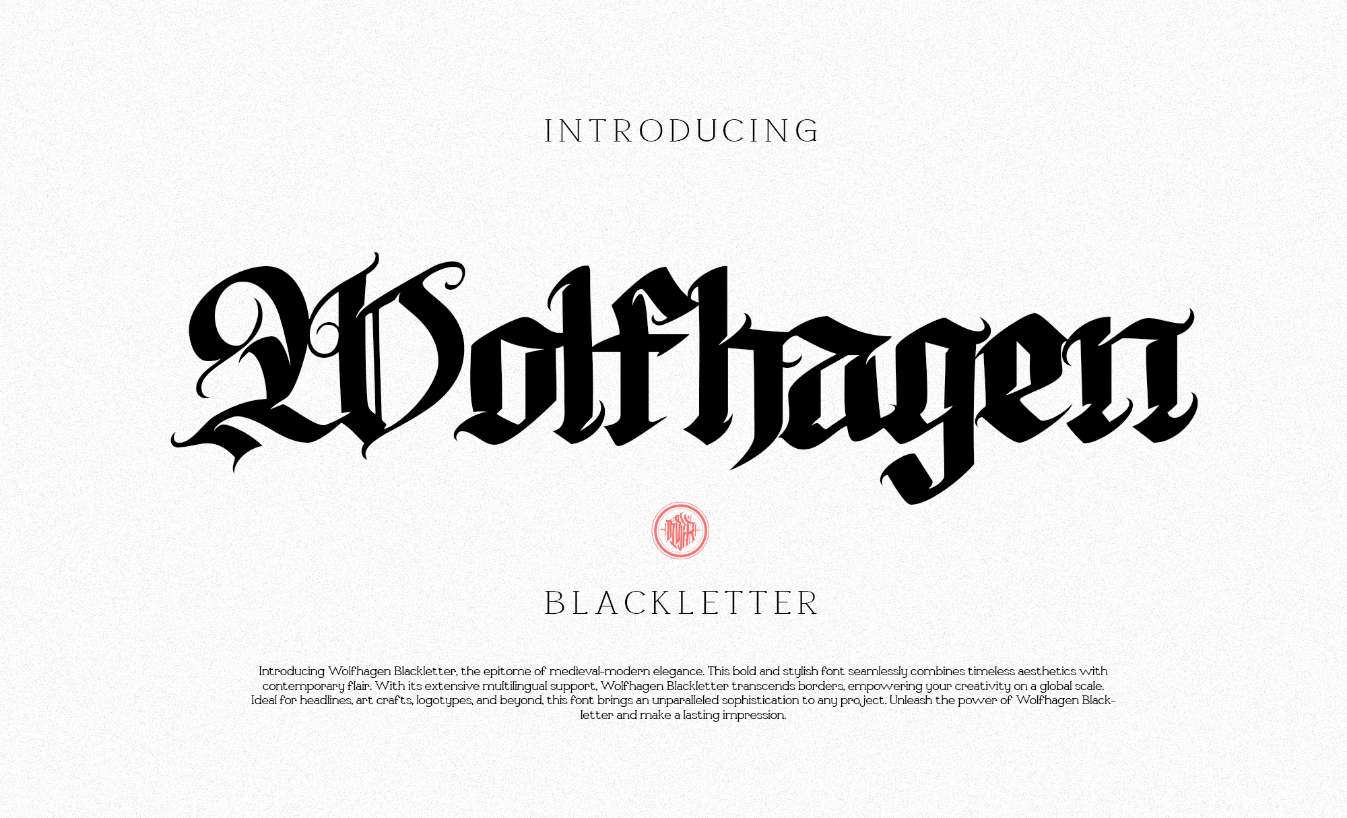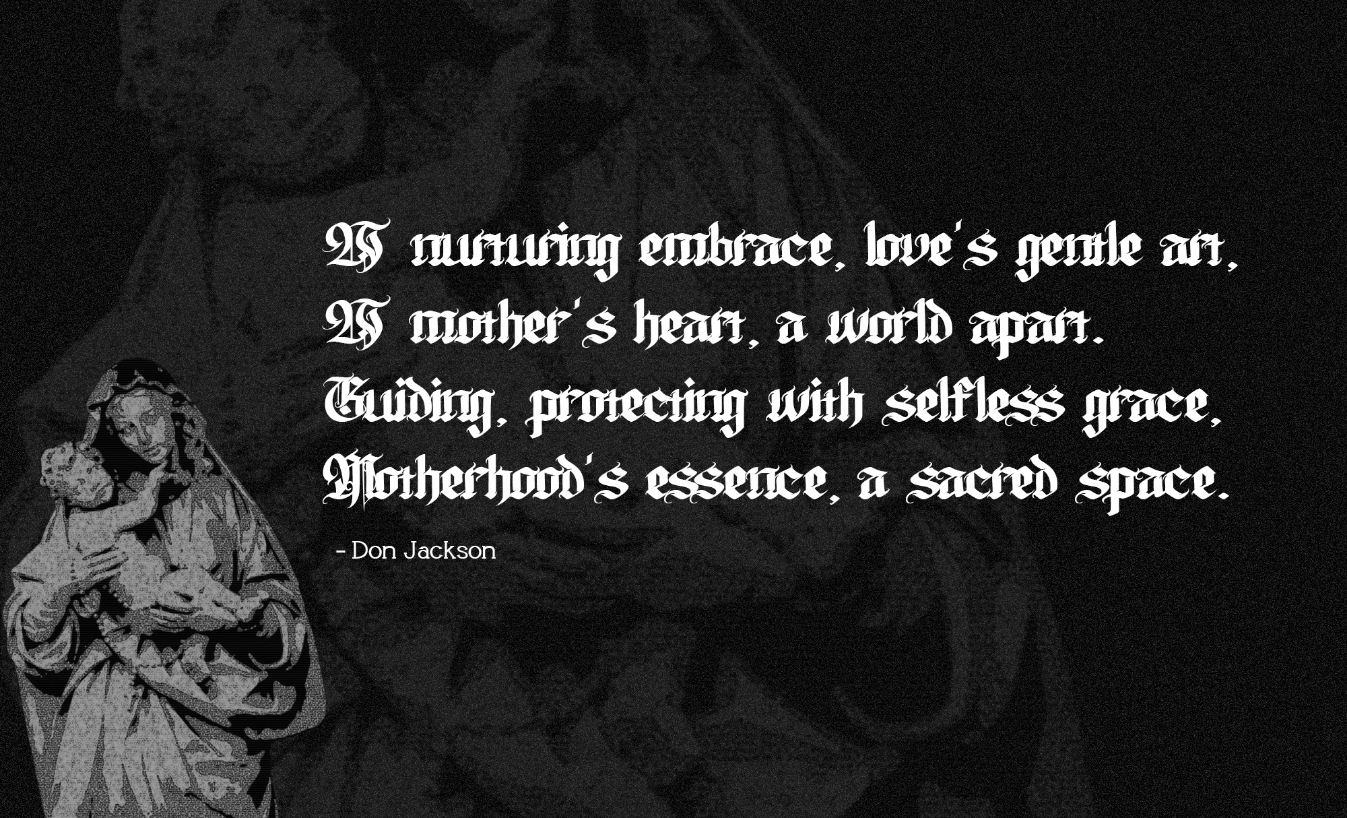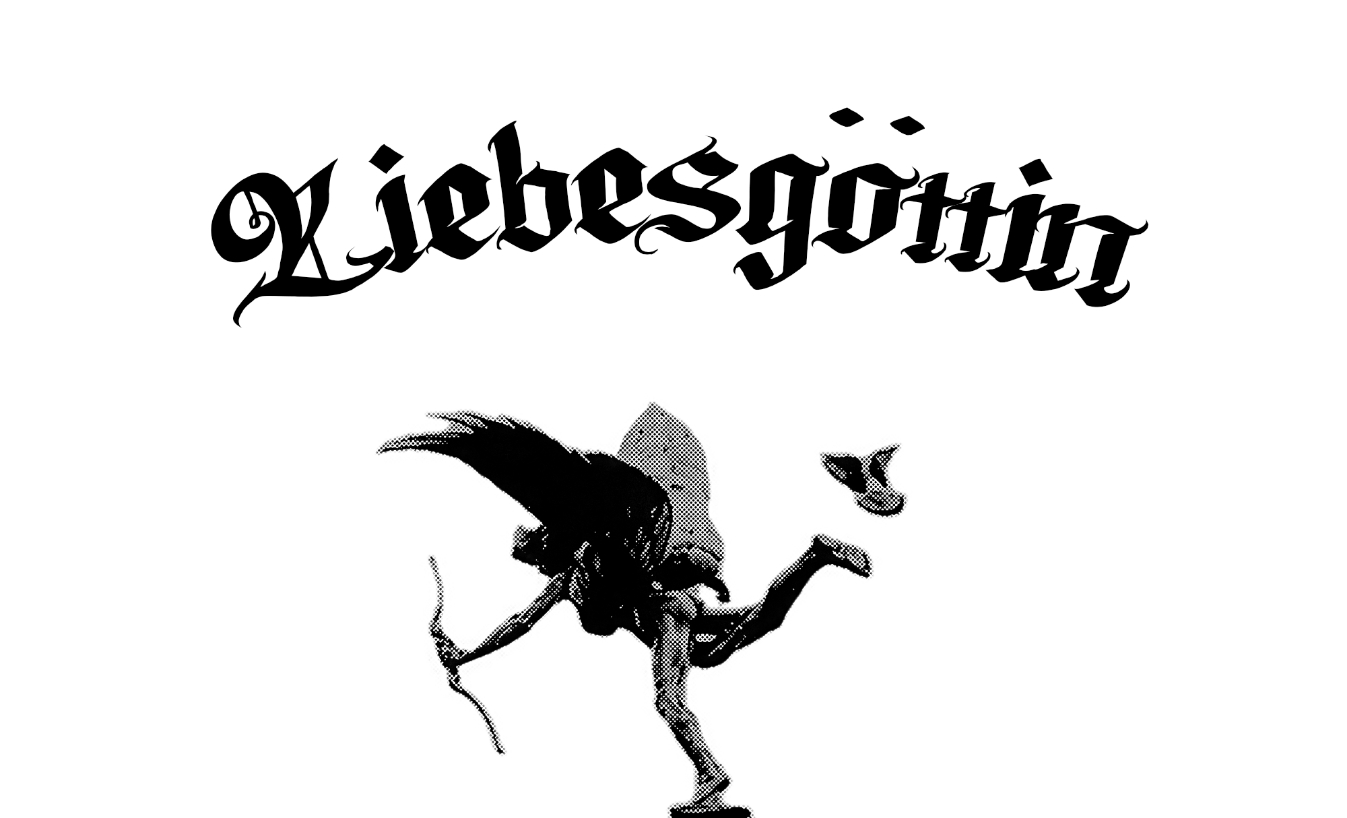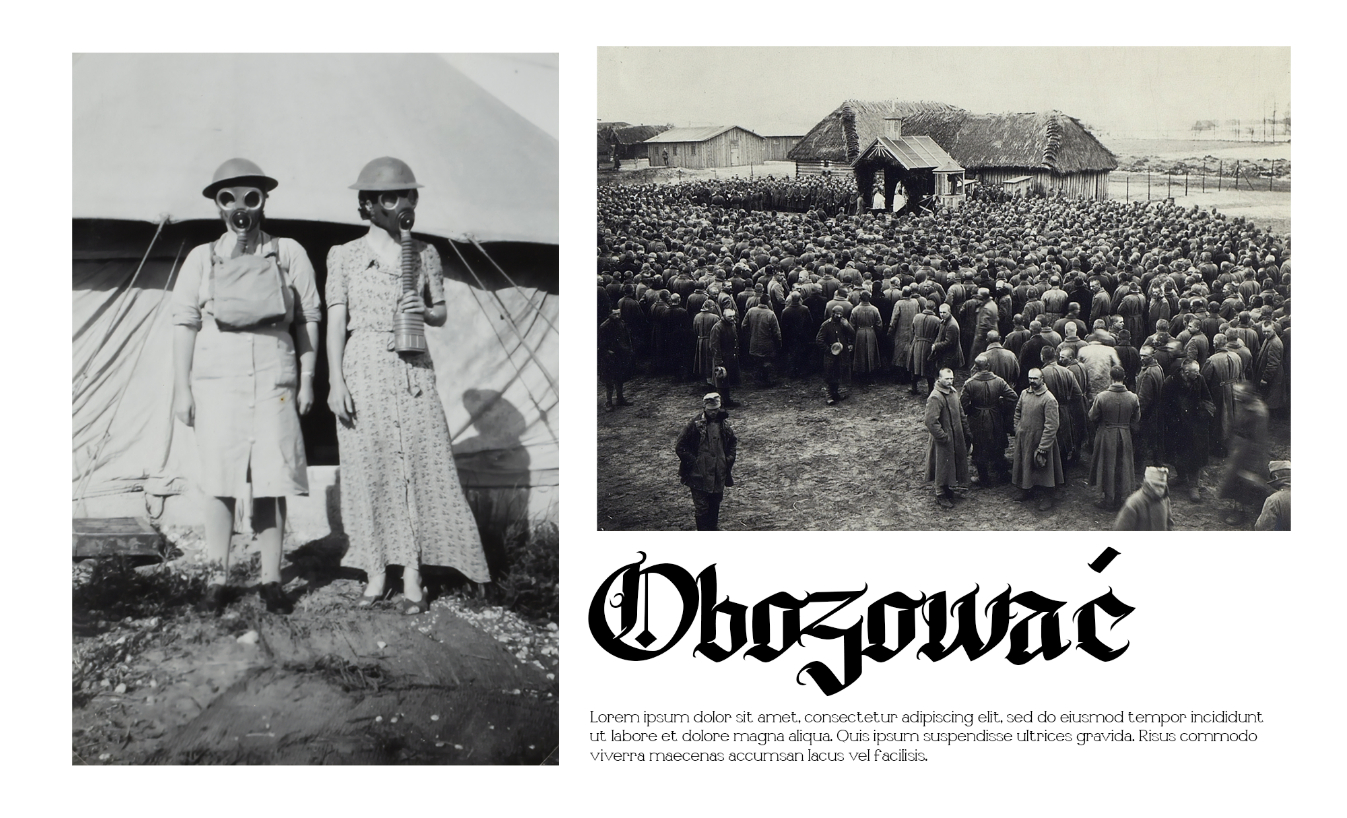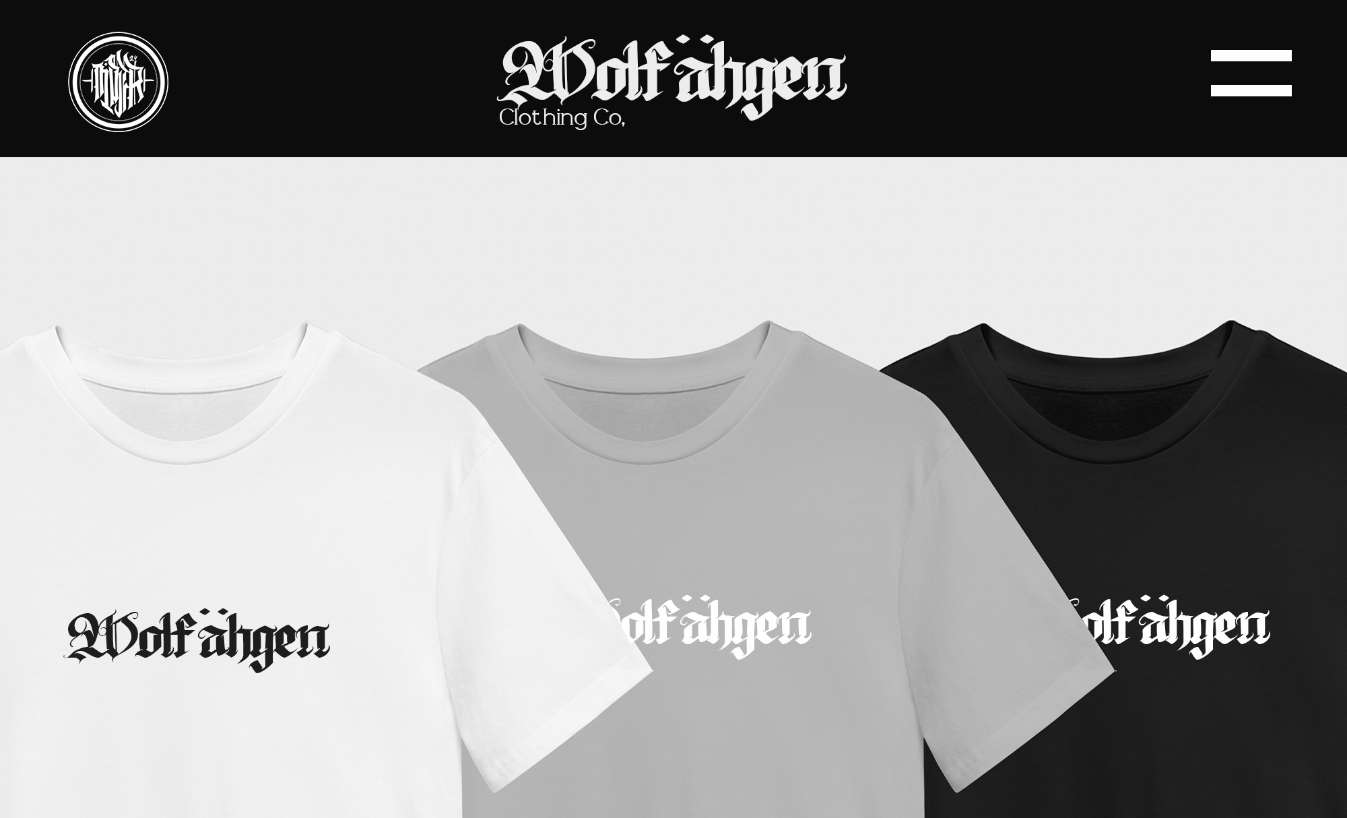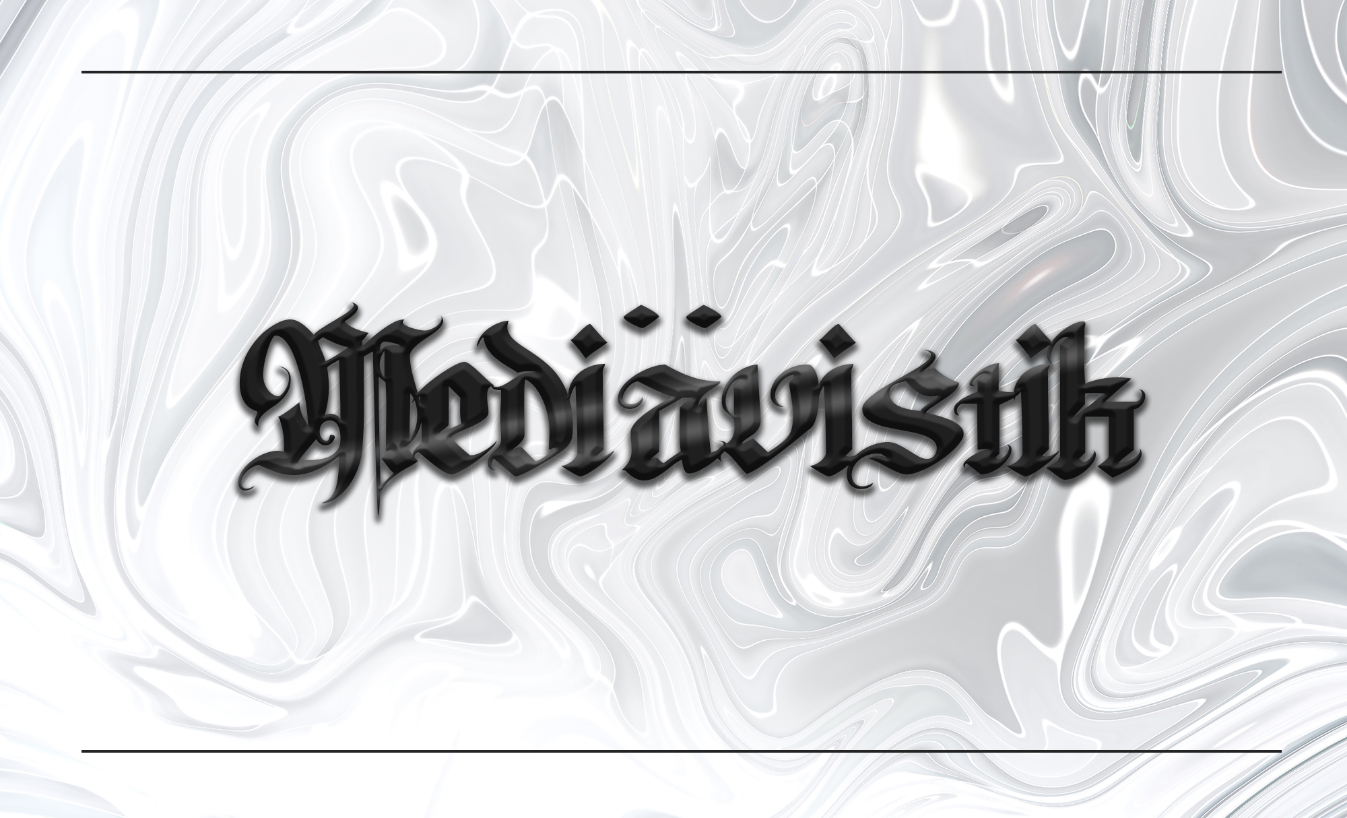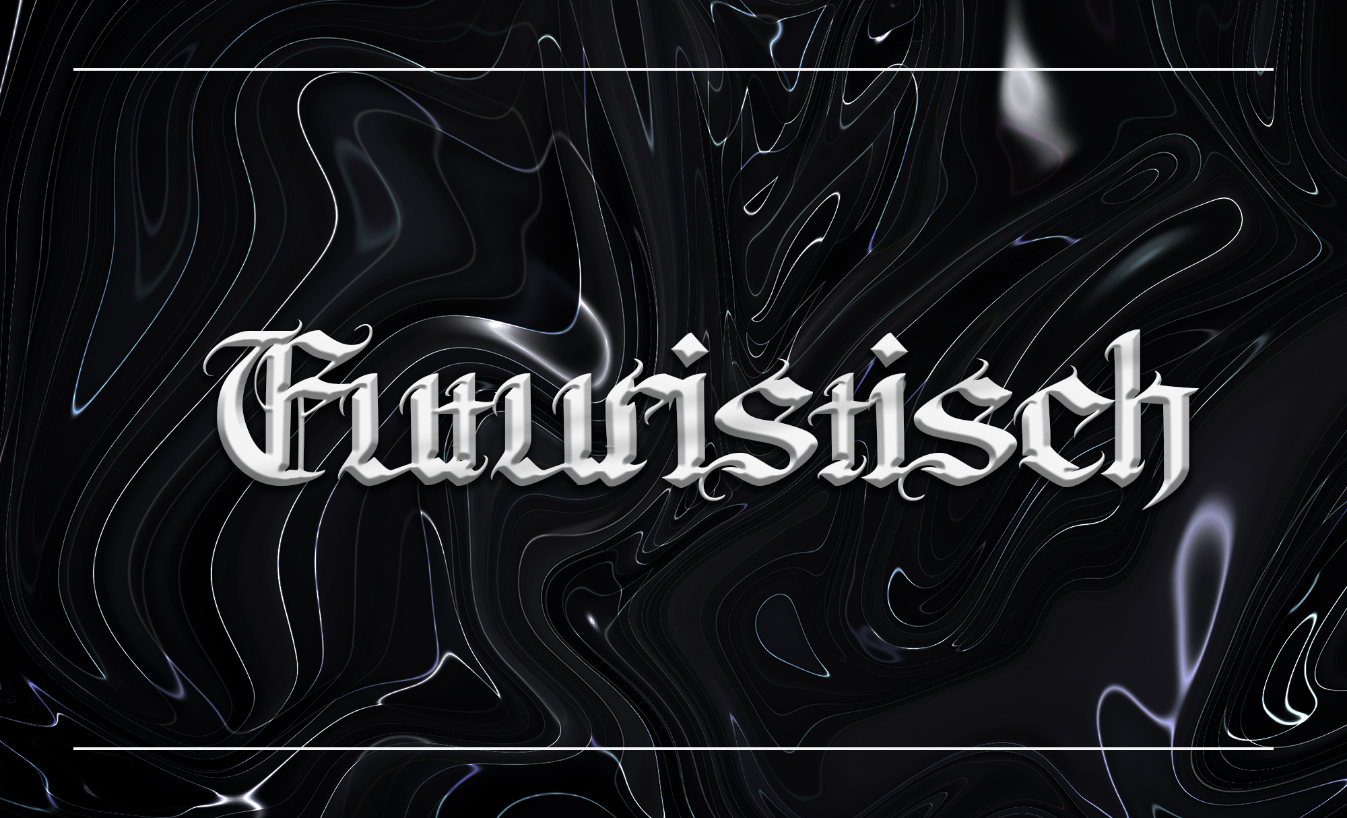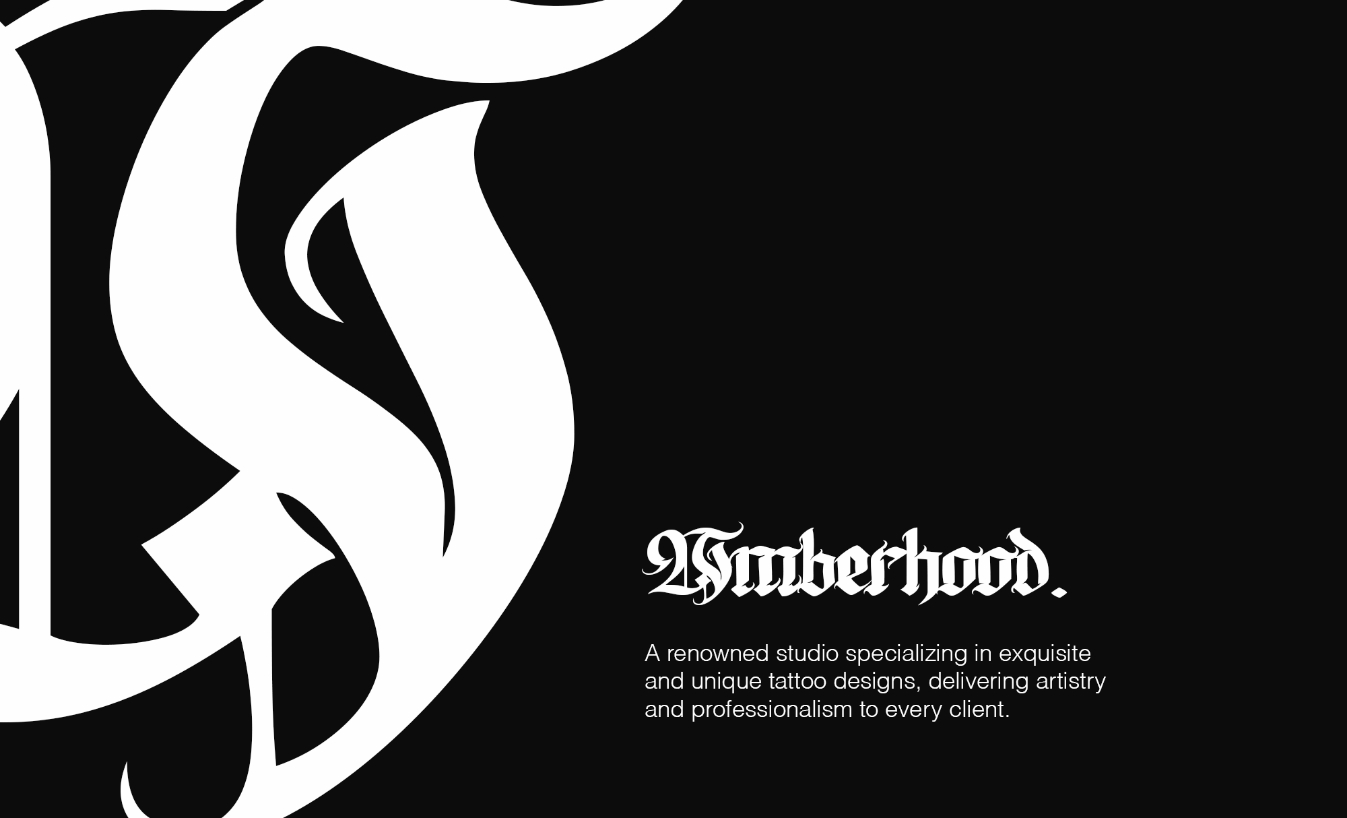
Wolfhagen Font
About Wolfhagen Font
This bold and stylish font seamlessly combines timeless aesthetics with contemporary flair. Wolfhagen transcends borders, empowering your creativity on a global scale. Ideal for headlines, art crafts, logotypes, and beyond, this font brings an unparalleled sophistication to any project.